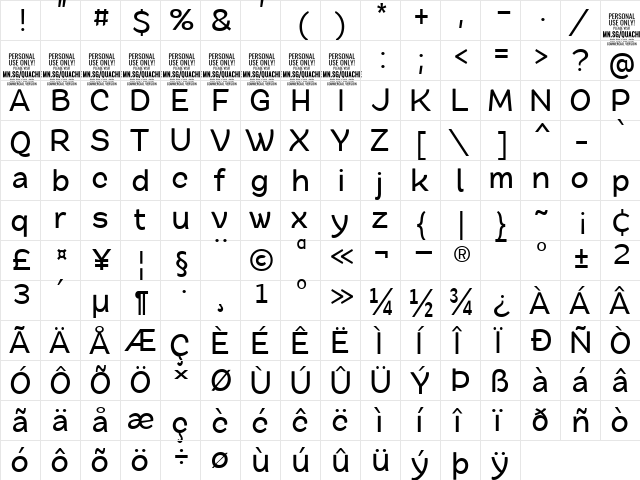
Quache Medium Condensed
Design Context for Quache Typeface
Quache is a composed and adaptable typeface that performs quietly and consistently across a wide range of design contexts. The condensed width makes it efficient for tight spaces without sacrificing legibility.